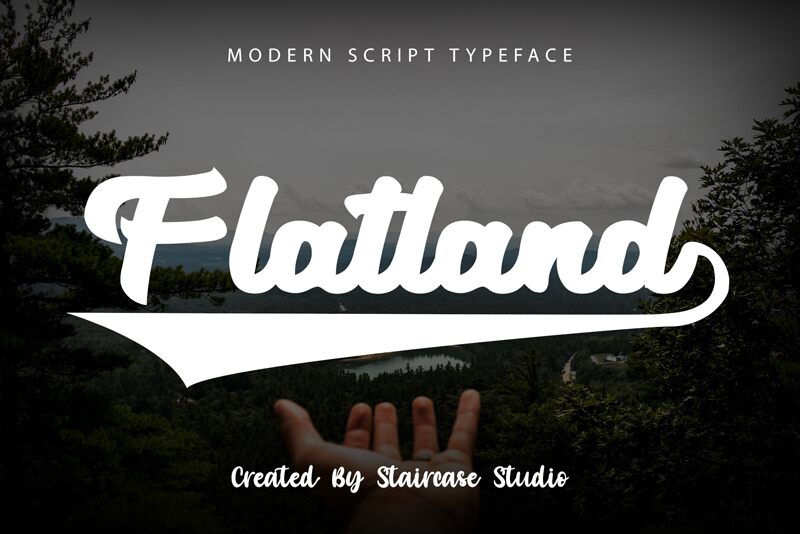
Flatland Swash is a script font designed by Staircase Studio. With its swash style, this font is perfect to add a creative touch to all your projects, including logos, invitations and websites.
Flatland Swash